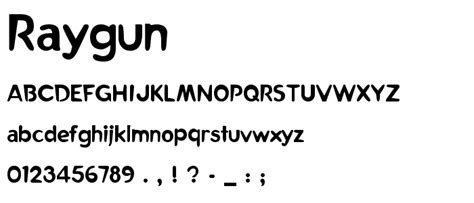
Raygun is a modern take on a grotesk style typeface, created unlike any other. 90,835 downloads (5 yesterday) 1 comment 100% free. Web by new tropical design.